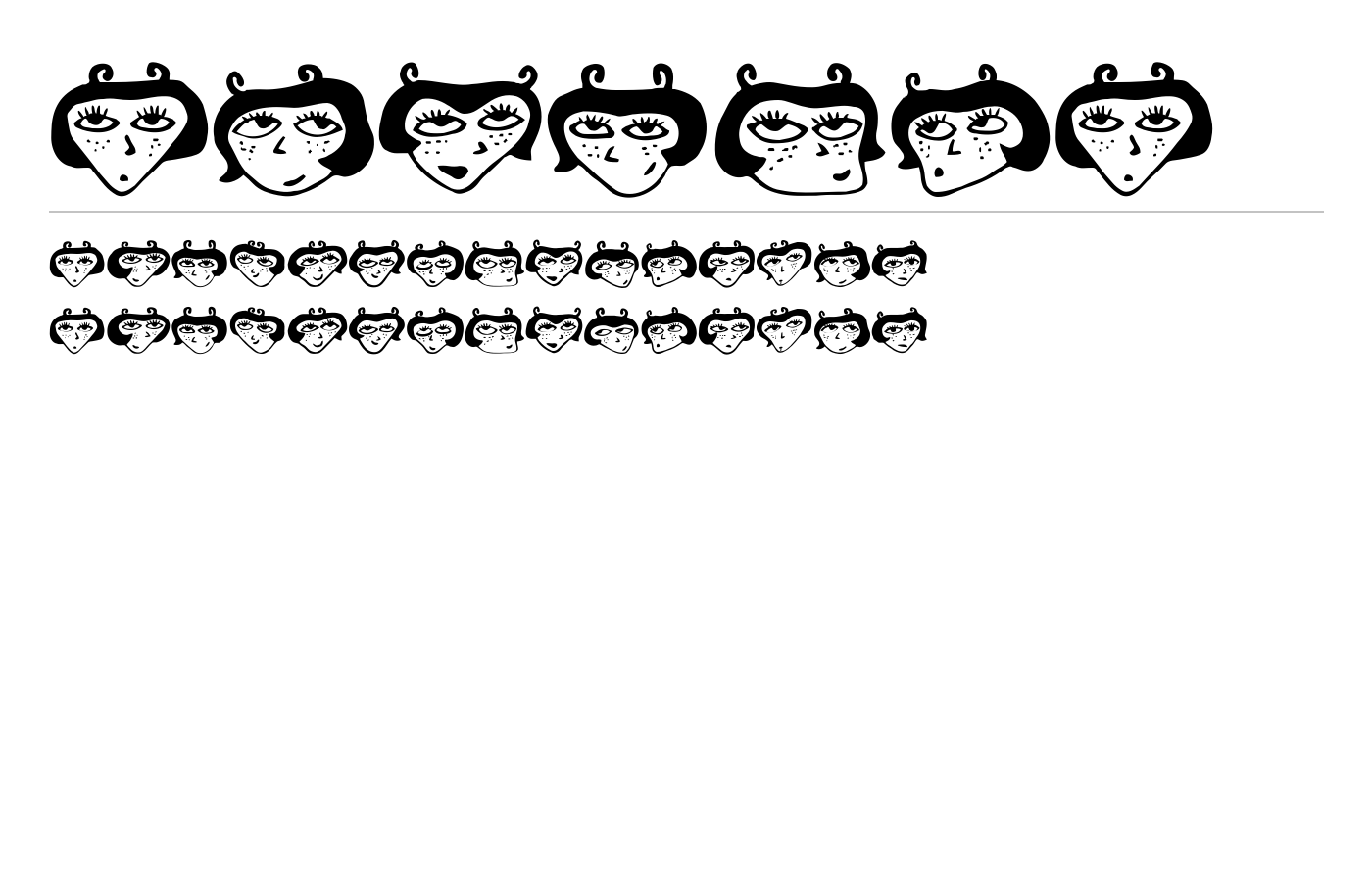
Anichka font is a playful and whimsical decorative typeface featuring quirky, hand-drawn character faces instead of traditional letters. Its unique and artistic design makes it ideal for creative projects, children's books, or branding that seeks a fun, informal, and imaginative vibe. This font works best in headlines, logos, or artistic compositions where a distinctive and charming personality is desired.
Anichka Font
About Anichka Font
| Font family | Anichka Font |